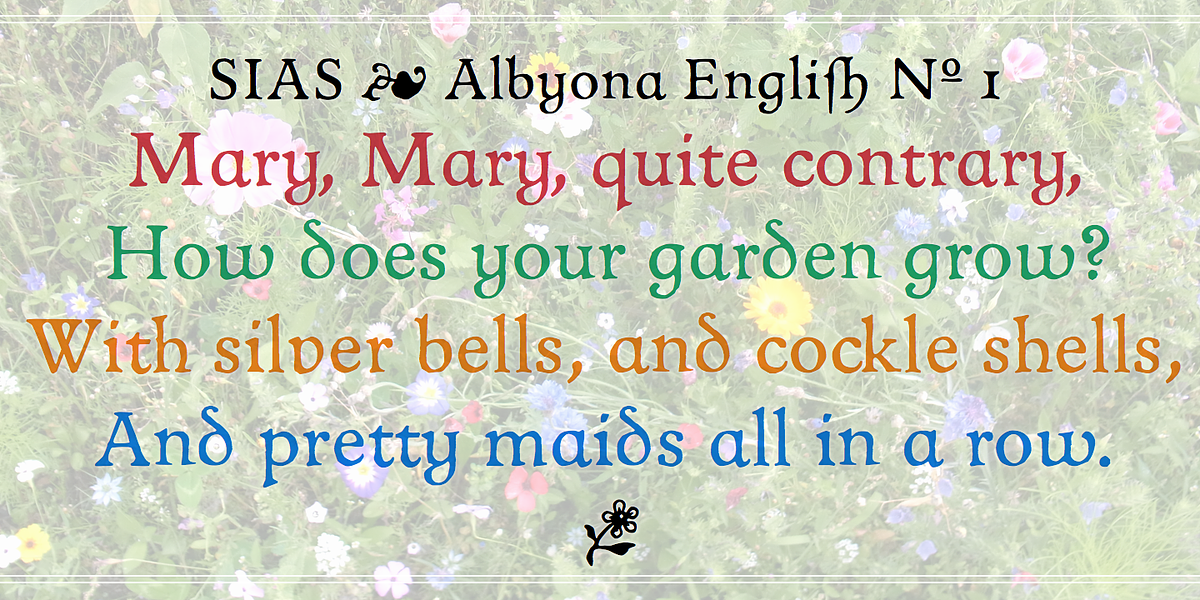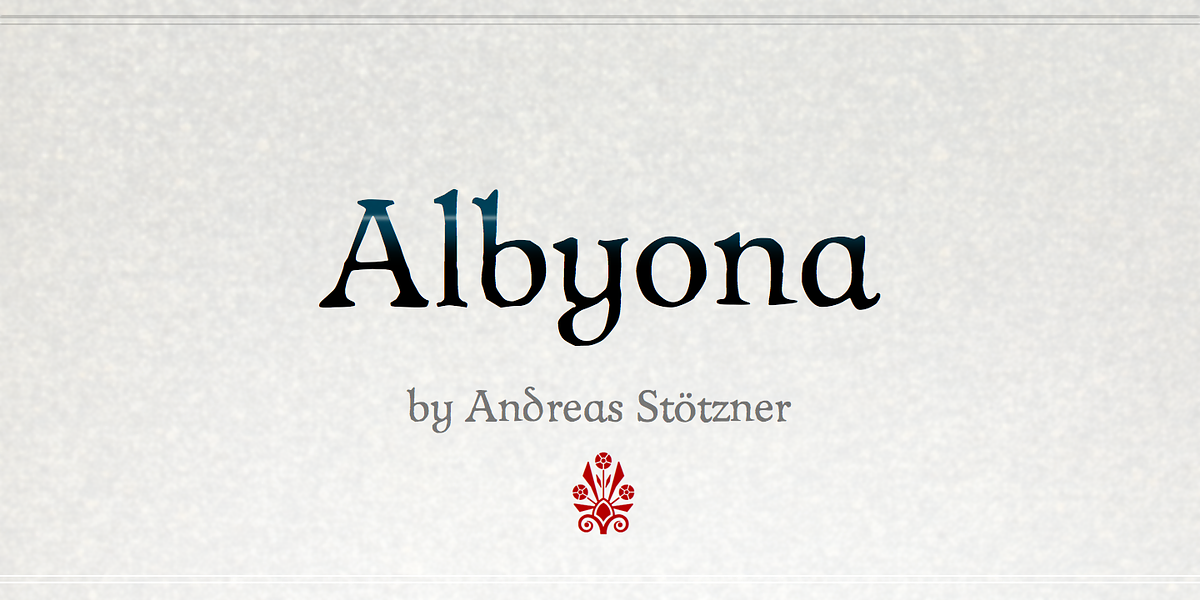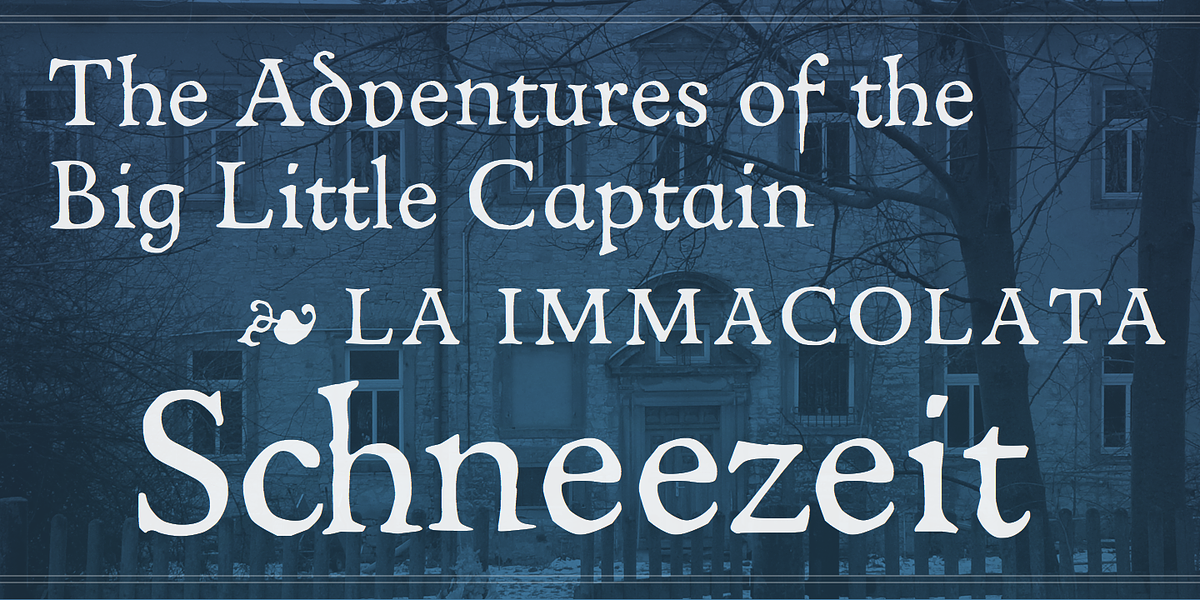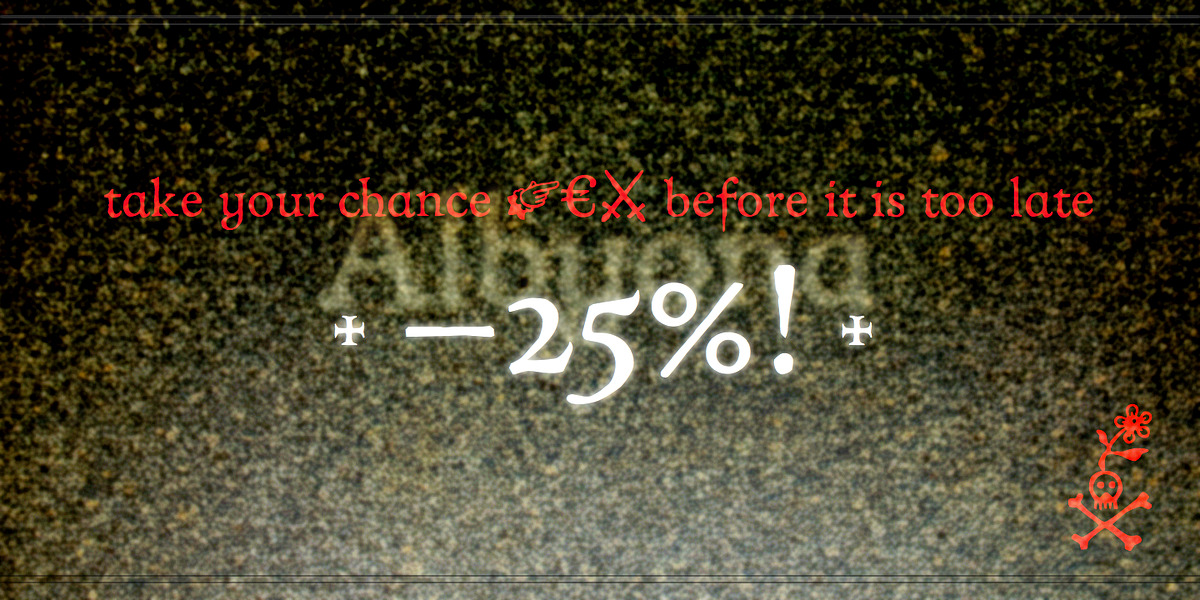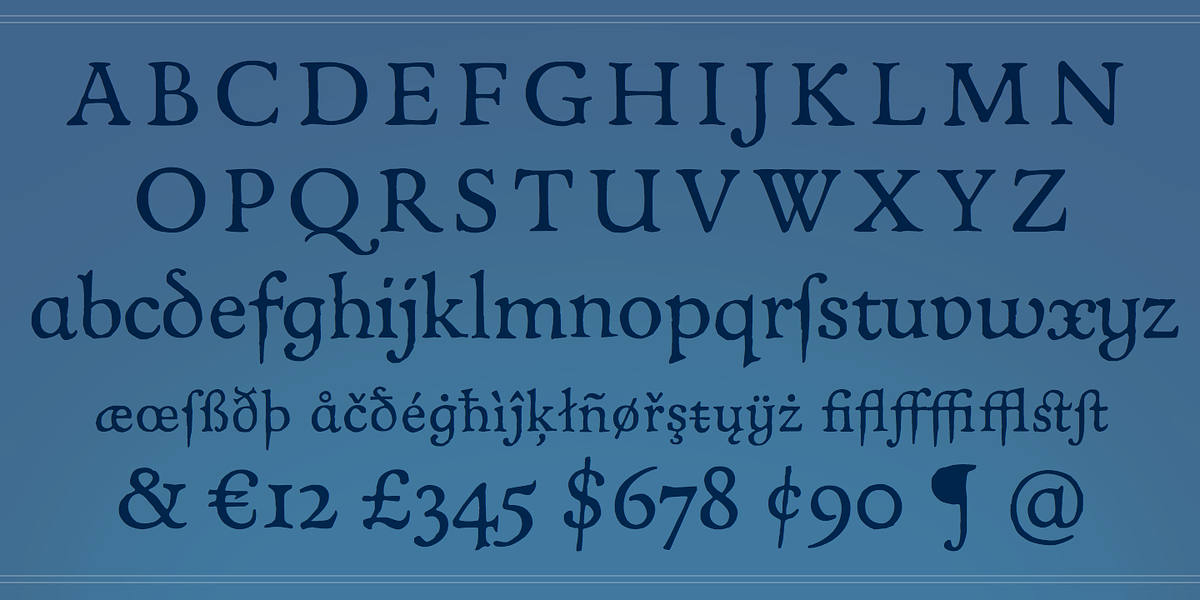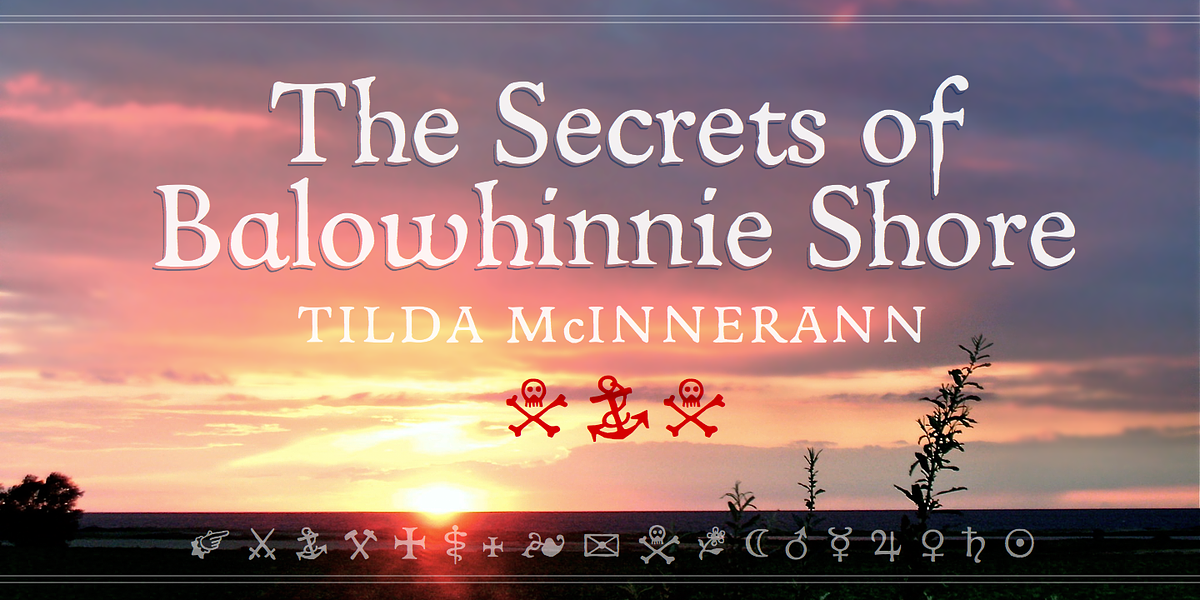
Albyona
Albyona English Nº 1 is a decorative display font with a distinct historical feel. Its rough aesthetic evokes a sense of nostalgia and memories. Suitable for a variety of applications including novels, children's books, fantasy literature, and packaging for natural food products or even poison labels. The font includes ornaments and symbols, adding to its versatility.